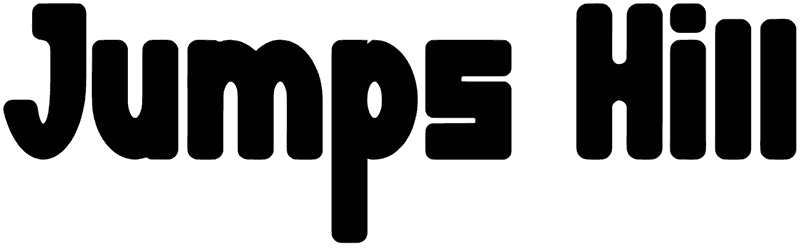
Jumps Hill Font
Jumps Hill is a bold cartoon font available in three distinct styles. Even though it doesn’t have any numbers, this sans-serif font does a good job of catching the eye.